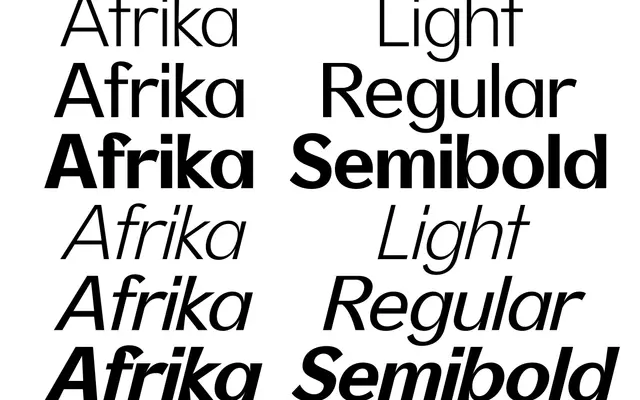
Afrika Sans
Trulytype · 2017
A sans-serif with brush-like stroke modulation, drawn from the influence African art movements had on 20th-century European avant-garde work.
Released in 2017, Afrika Sans takes its conceptual cue from the sculptural and tactile qualities that drew artists like Picasso and Matisse toward African traditional forms. Its strokes carry a visible calligraphic quality that gives the letterforms warmth and movement without sacrificing a clean, modern structure. Five weights and broad Latin Extended coverage make it usable across branding, editorial and display contexts where a touch of textural character is welcome.
Described as having brush-like strokes and a clean modern structure, placing it within humanist sans-serif territory where calligraphic influence softens an otherwise contemporary skeletal form.